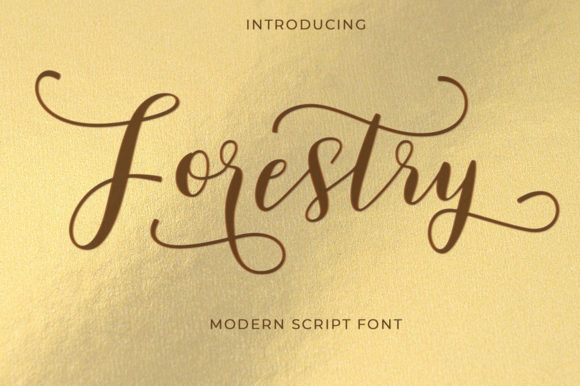
Step inside the enchanting world of "Forestry Font," a captivating script font crafted by the ingenious minds at Typehill. Designed to evoke the very essence of nature's embrace, this font weaves a tapestry of elegance and charm, inviting you to pen down your thoughts and visions with an air of whimsical artistry.
Unleash your creativity and let your imagination soar as you explore the boundless possibilities of Forestry Font. With its graceful swashes and effortless flow, this font breathes life into your words, transforming them into a symphony of movement and expression. Its natural beauty knows no bounds, making it the perfect choice for adding a touch of organic charm to any project.
Picture the delicate curves of "Forestry Font" adorning your wedding invitations, imbuing them with a romantic and ethereal allure. Or envision it dancing across the pages of your personal journal, capturing your innermost thoughts and dreams with a touch of timeless grace. Allow its elegant lines to guide your hand as you craft heartfelt letters, infusing your words with warmth and sincerity.
Embrace the allure of "Forestry Font" and elevate your creative endeavors to new heights. Its versatility knows no limits, lending itself effortlessly to a myriad of design styles. Whether you seek to enchant your branding with a hint of whimsy or infuse your social media presence with a touch of organic charm, Forestry Font stands ready to be your faithful companion.
Let the natural beauty of Forestry Font inspire your imagination, captivating your audience with its enchanting allure. Experience the joy of writing as never before, where every word becomes a brushstroke, painting a vibrant tapestry of creativity and expression. Embrace the boundless possibilities of Forestry Font and transform your design visions into an unforgettable symphony of style and beauty.